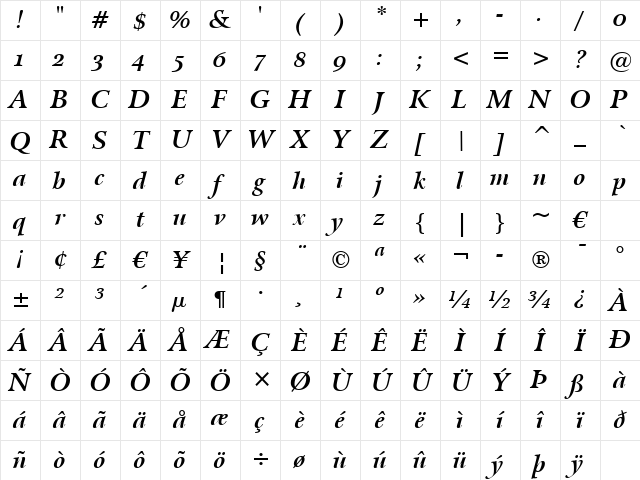
Arrus OSF BT Bold Italic
Arrus OSF BT Family
Arrus OSF BT Bold Italic
Design Context for Arrus OSF BT
Arrus OSF BT is a composed and adaptable typeface that performs quietly and consistently across a wide range of design contexts. The slanted form adds forward momentum and visual energy. Its bold stroke weight gives it real presence on the page.
Pro Tip: Use Arrus OSF BT for emphasis, pull quotes, and subheadings where its slanted energy can add rhythm to the layout.